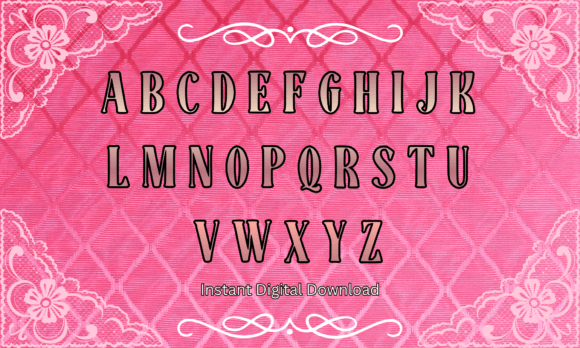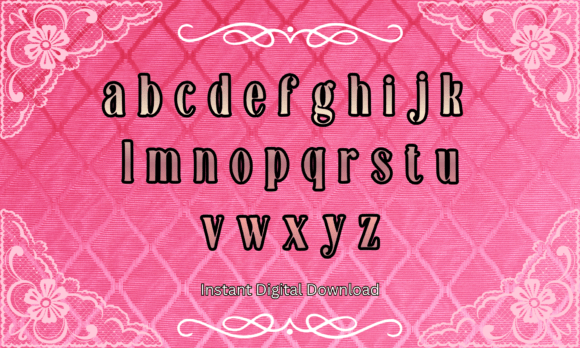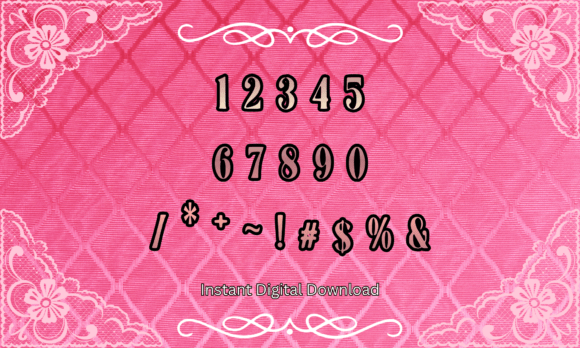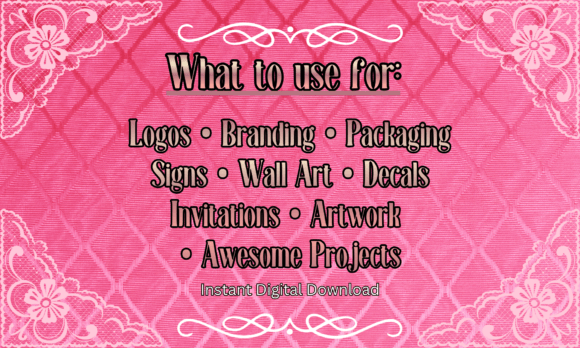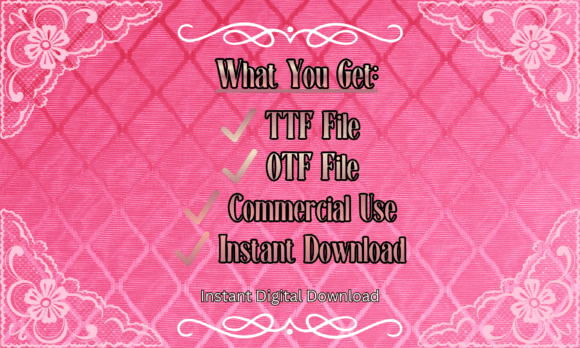
Add a Touch of Elegance and Luxury to Your Designs with Haute Couture Font ✨
Elevate your designs with a dash of high-end fashion and sophistication using the stunning Haute Couture Font. Inspired by the intricate details of delicate lace and the timeless elegance of high fashion, this font seamlessly blends feminine charm with bold elegance. Whether you’re a creator, boutique owner, or designer, this font is perfect for anyone looking to add a touch of luxury and polish to their work.
Perfect for Fashion, Beauty, and Chic Branding
The Haute Couture Font is ideal for a wide range of design applications, including fashion, beauty, and chic branding. Its elegant and sophisticated style makes it perfect for:
- Boutique logos and branding
- Fashion and beauty designs
- Wedding invitations
- Packaging and labels
- Stickers and decals
- Apparel
- Uppercase letters (A-Z)
- Lowercase letters (a-z)
- Numbers (0-9)
- Symbols and punctuation
Why Choose Haute Couture Font?
The Haute Couture Font is the perfect choice for designers and crafters who want to add a touch of elegance and luxury to their work. With its delicate lace details and timeless sophistication, this font is sure to elevate your designs and make them stand out.
Here are just a few reasons why you should choose the Haute Couture Font:
- Elegant and sophisticated style: The Haute Couture Font has a unique and stylish design that’s perfect for high-end fashion and beauty brands.
- Feminine charm: The font’s delicate lace details and feminine charm make it perfect for designs that require a touch of elegance and sophistication.
Tips for Using Haute Couture Font
Here are a few tips for using the Haute Couture Font in your designs:
- Pair it with bold colors: The Haute Couture Font looks stunning paired with bold colors like red, gold, or navy blue.
- Use it for headings and titles: The font’s elegant and sophisticated style makes it perfect for headings and titles.
- Experiment with different sizes: The font looks great in a variety of sizes, from small and delicate to large and bold.
| Font Name | Haute Couture Font |
| Author | Pamlico Creations |
The Haute Couture Font is a stunning addition to any designer’s collection. With its elegant and sophisticated style, delicate lace details, and timeless sophistication, this font is perfect for anyone looking to add a touch of luxury and polish to their work. Whether you’re designing for fashion, beauty, or chic branding, this font is sure to elevate your creations and make them stand out.